Aditya Name Meaning in Hindi Calligraphy Style
Aditya is one of the most powerful and respected names in India. The meaning of Aditya is “Surya” or “Sun God,” which represents energy, confidence, success, and brightness. In this blog, I am sharing a premium Aditya name logo created as Hindi calligraphy in a new stylish Hindi font. Anyone can download and use this Aditya name tattoo and logo design for personal branding or business branding.
Aditya Name Personality
The personality of the name Aditya is bold, leadership-focused, and charming. People with the name Aditya are creative thinkers with strong decision making abilities. When you use an Aditya name logo in Hindi typography, your brand gains a visible sense of Indian pride and cultural connection.
This beautiful Aditya design is made as clean vector artwork. You can use it for business branding, YouTube logos, t-shirt prints, stickers, visiting cards, wedding cards, and even as an Aditya name tattoo. The design keeps simplicity and beauty balanced, so your brand always looks elegant.
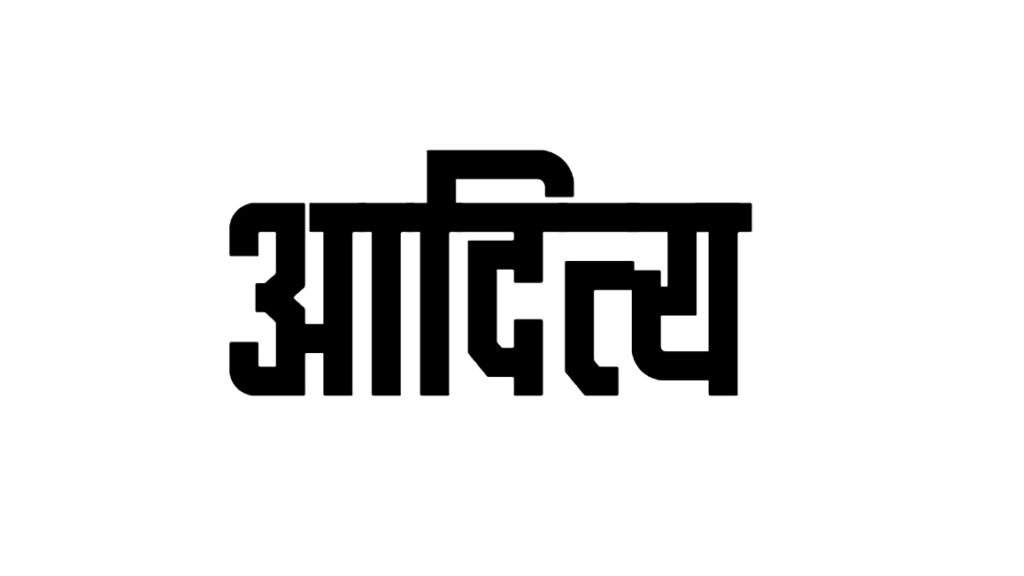
Aditya Name Pronunciation
The pronunciation of Aditya is “A-dit-ya.” When it is written in Hindi calligraphy, the pronunciation looks visually connected to Indian culture. Using names in Hindi for branding is becoming a trend because it helps the audience emotionally connect with the brand.
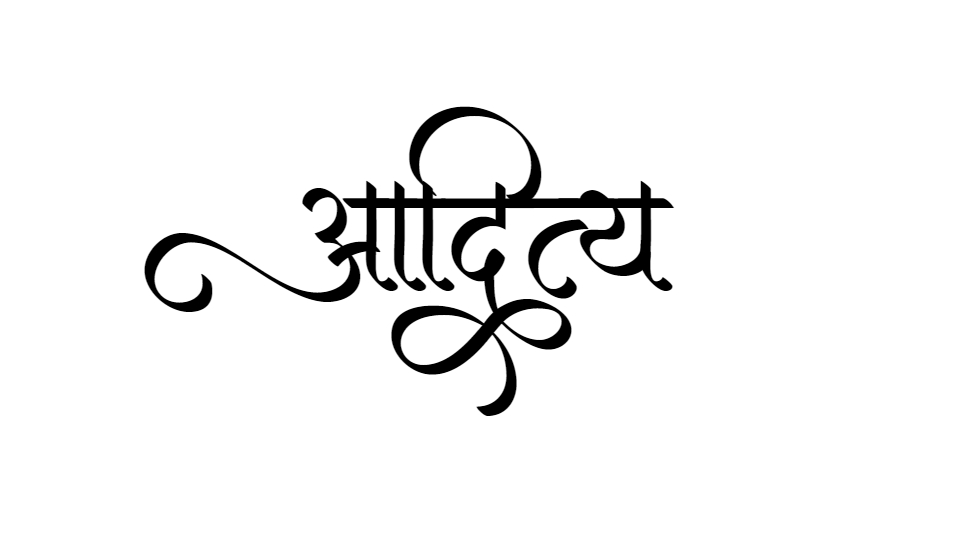
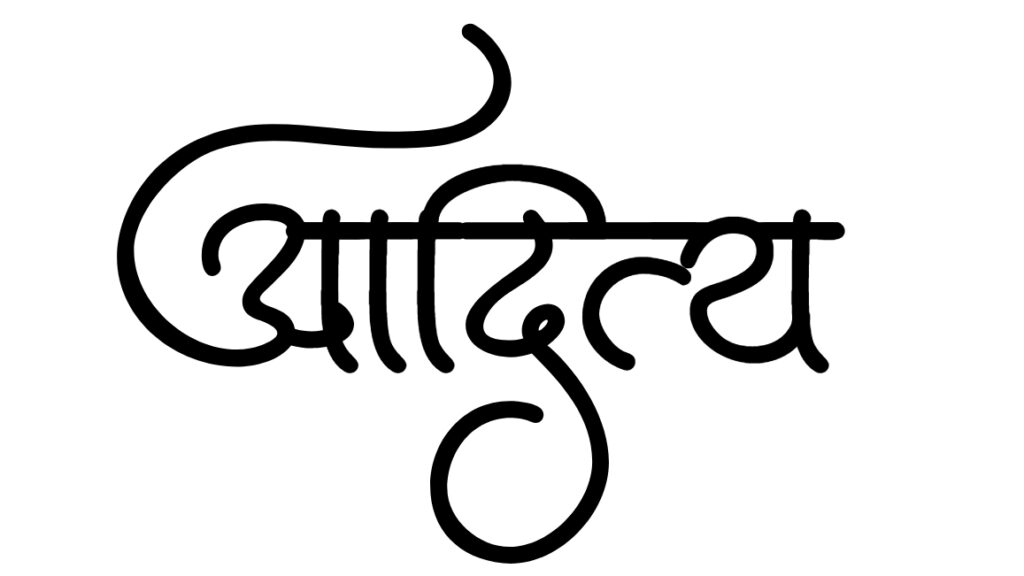
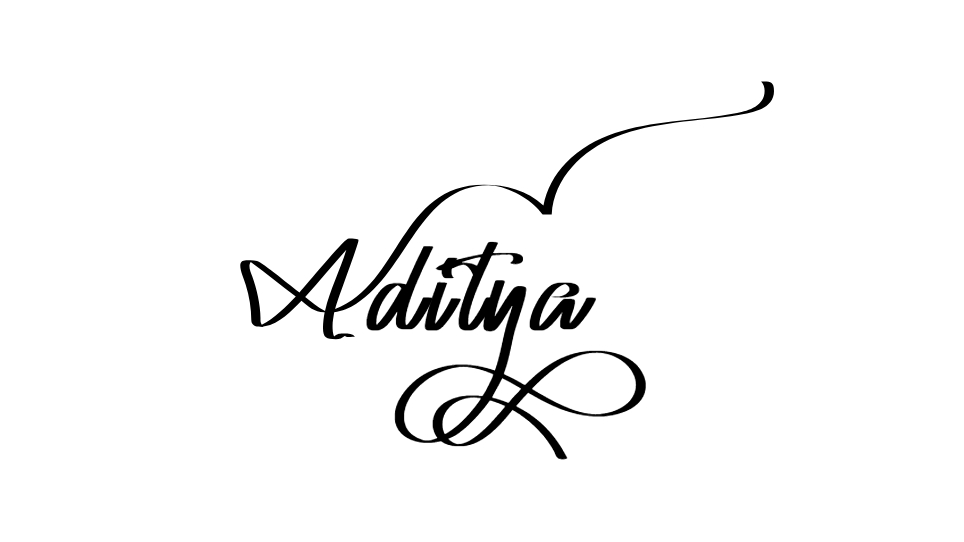
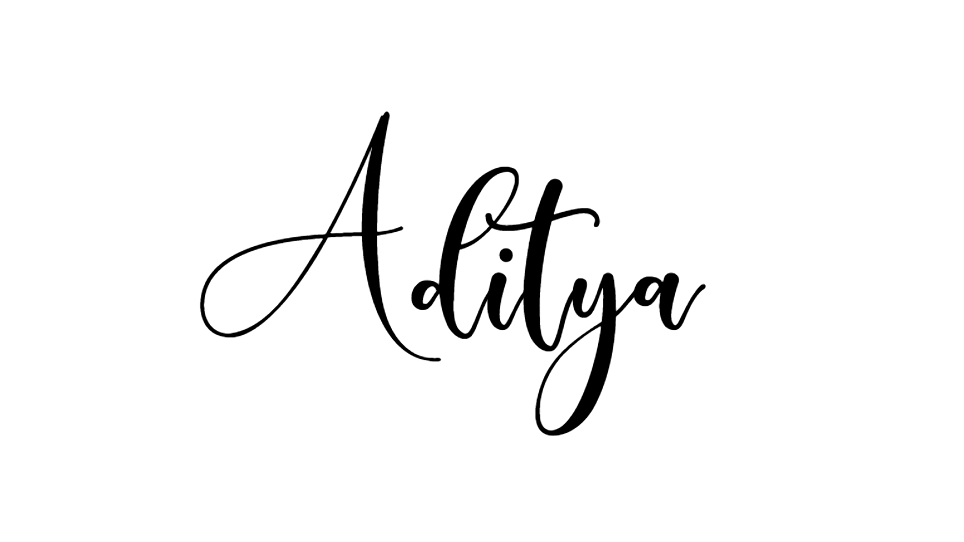
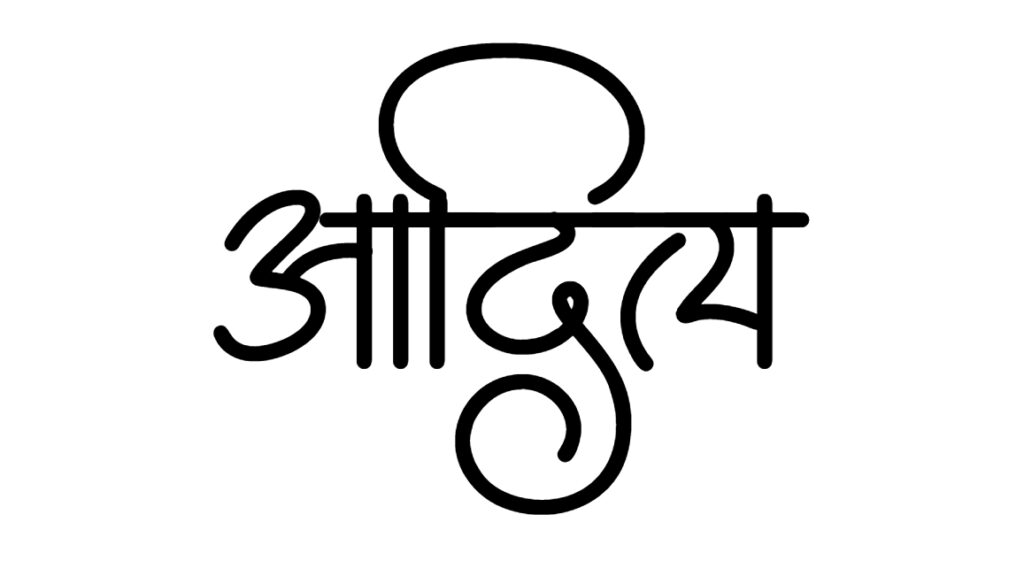
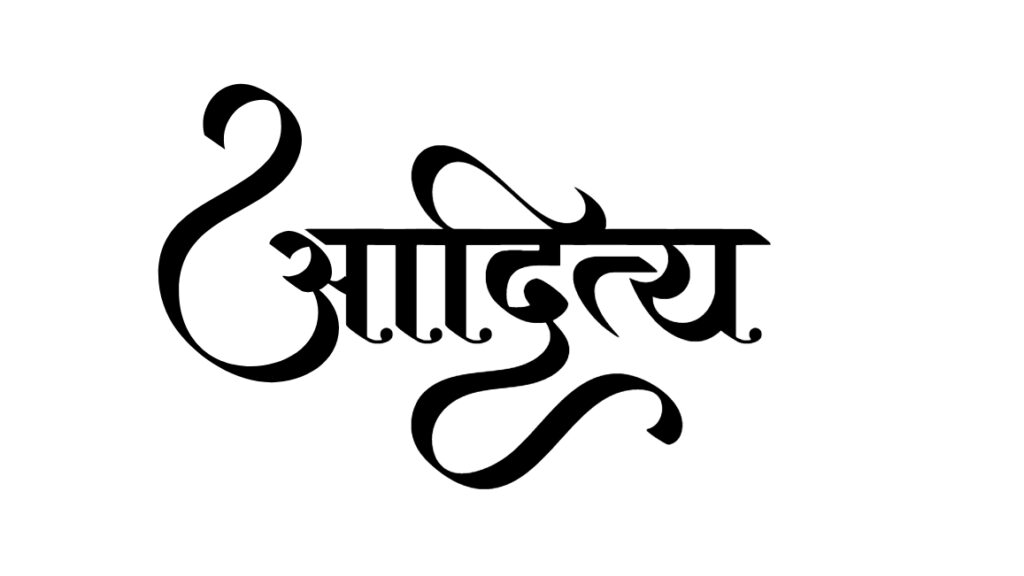
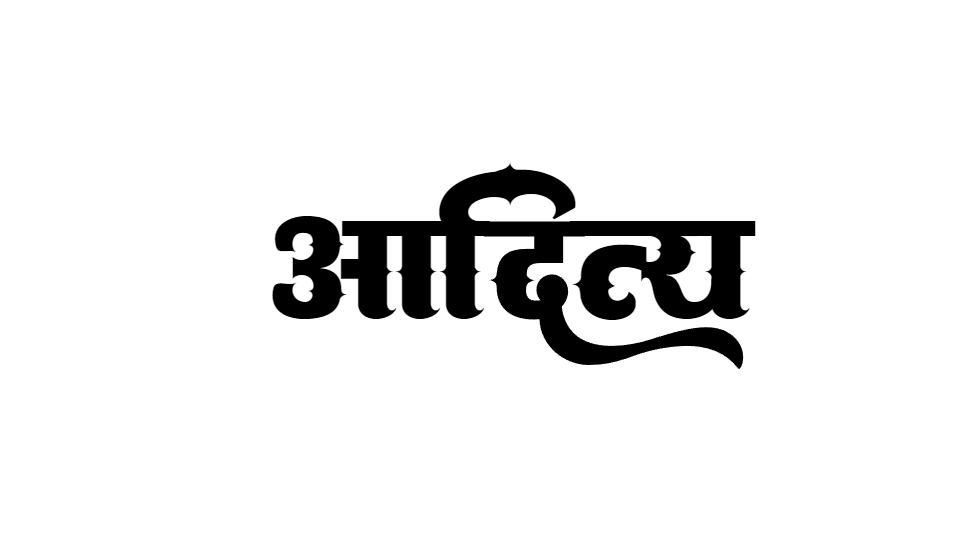
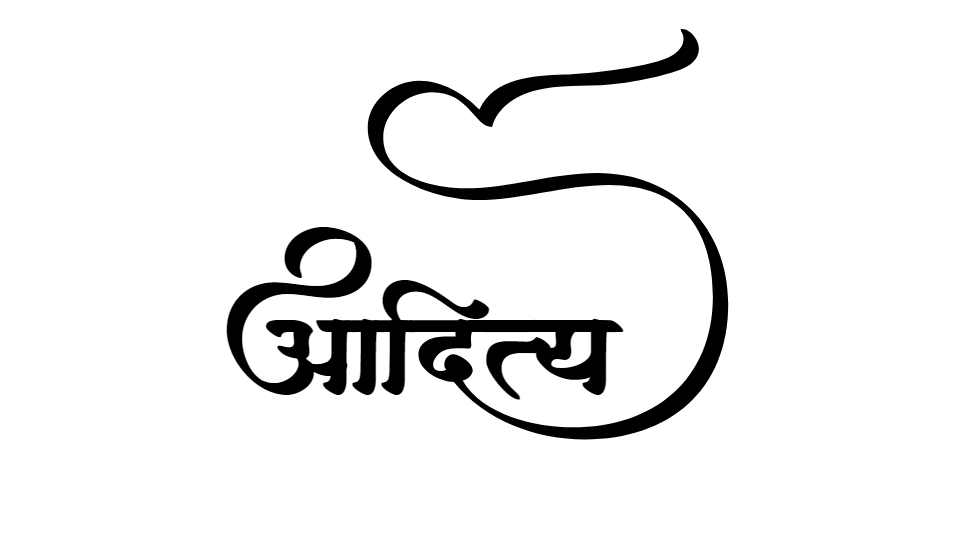
Q1. What is the meaning of the name Aditya?
The name Aditya means Surya or Sun God, symbolizing energy, power, leadership, and success.